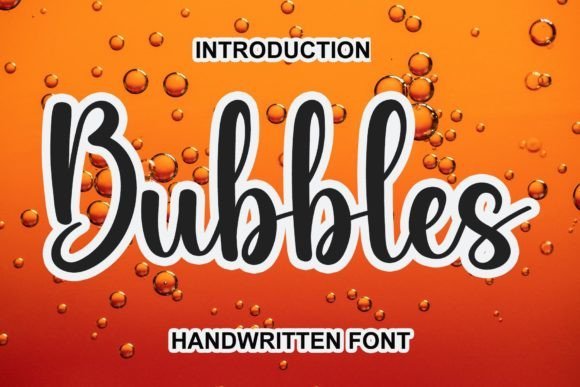
The Magic of Handwritten Typography: Introducing Bubbles Font
Do you ever find yourself doodling in a notebook, trying to capture the perfect script or lettering style? For designers, those moments of creative spark can be a treasure trove of inspiration. It’s in those moments that we discover the beauty of handwritten typography, and the Bubbles Font is a perfect example of this.
Bubbles Font is a delicate, elegant, and flowing handwritten font that’s designed to bring a touch of whimsy and sophistication to your favorite projects. Its incredibly distinct and timeless style makes it perfect for creating spectacular designs that stand out from the crowd. Whether you’re a graphic designer, a writer, or simply a creative enthusiast, Bubbles Font is a valuable tool that can help you elevate your work and make it truly unforgettable.
Bubbles Font Key Features
- Character Set: The font includes a comprehensive set of characters, including Latin, Cyrillic, and Greek alphabets, as well as a range of punctuation marks and symbols.
- Unique Characteristics: Bubbles Font features a distinctive, rounded design with a playful and whimsical feel, making it ideal for children’s books, magazines, and other publications that require a lighthearted tone.
- Font Styles: The font includes a range of styles, including Regular, Italic, Bold, and Bold Italic, allowing users to customize the look and feel of their text.
Bubbles Font Review
At first glance, the Bubbles font appears to be a fun and playful addition to any design project. ✨ Its whimsical, hand-drawn feel immediately grabs attention and is sure to add a touch of personality to your work.
Some of the strengths of the Bubbles font include:
- High level of customization – with multiple styles and weights available, you can tailor the font to fit your project’s unique needs.
- Unique, eye-catching design – perfect for grabbing attention and conveying a sense of playfulness.
- Good legibility – despite its playful feel, the font remains easy to read and understand.
- May not be suitable for formal or professional projects – its playful feel may come across as immature or unprofessional.
- Not ideal for large blocks of text – the font’s whimsical design can become overwhelming when used extensively.
Overall, the Bubbles font is a great choice for designers looking to add a touch of personality and whimsy to their projects. While it may not be suitable for every project, it’s a versatile and fun font that can help you stand out from the crowd.
Tips for Getting the Most Out of the Bubbles Font
The Bubbles font is perfect for creating playful and whimsical designs. To get the most out of it, try using it in combination with bold colors and playful graphics. You can also use it to create a sense of movement and energy in your design.
The Bubbles font is ideal for:
- Playful social media graphics
- Whimsical advertising campaigns